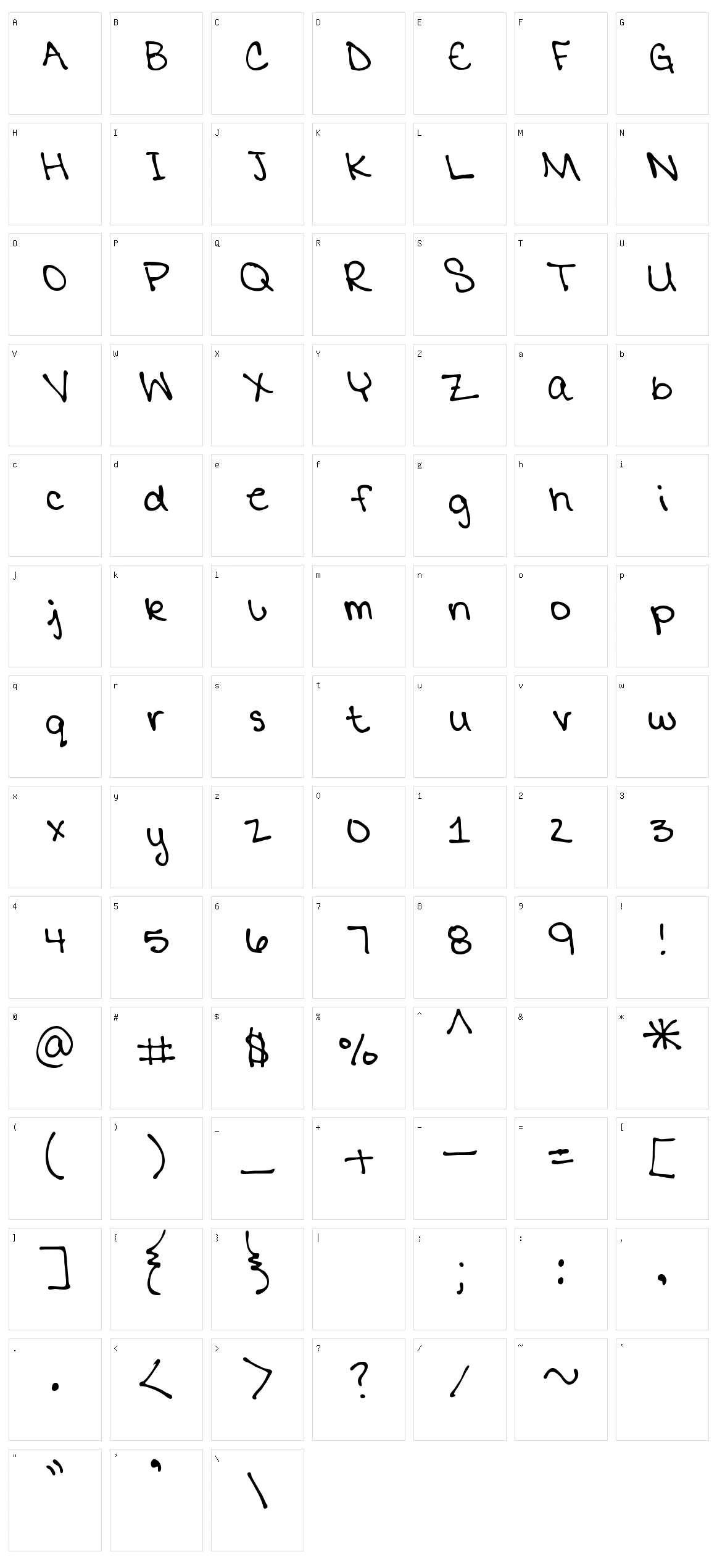
The free font MTF Mikayla Print is carefully designed by Miss Tiina Fonts - MTF, showcasing a thoughtful balance of creativity and usability and falls under the Script font style. When you download the ZIP file, it contains only 98.04 KB of font files, making it lightweight and quick to download. Please review the license details below to understand permitted usage and distribution rights. If license information is not available, we recommend using this font for personal projects only or contacting the author directly for commercial usage permissions.